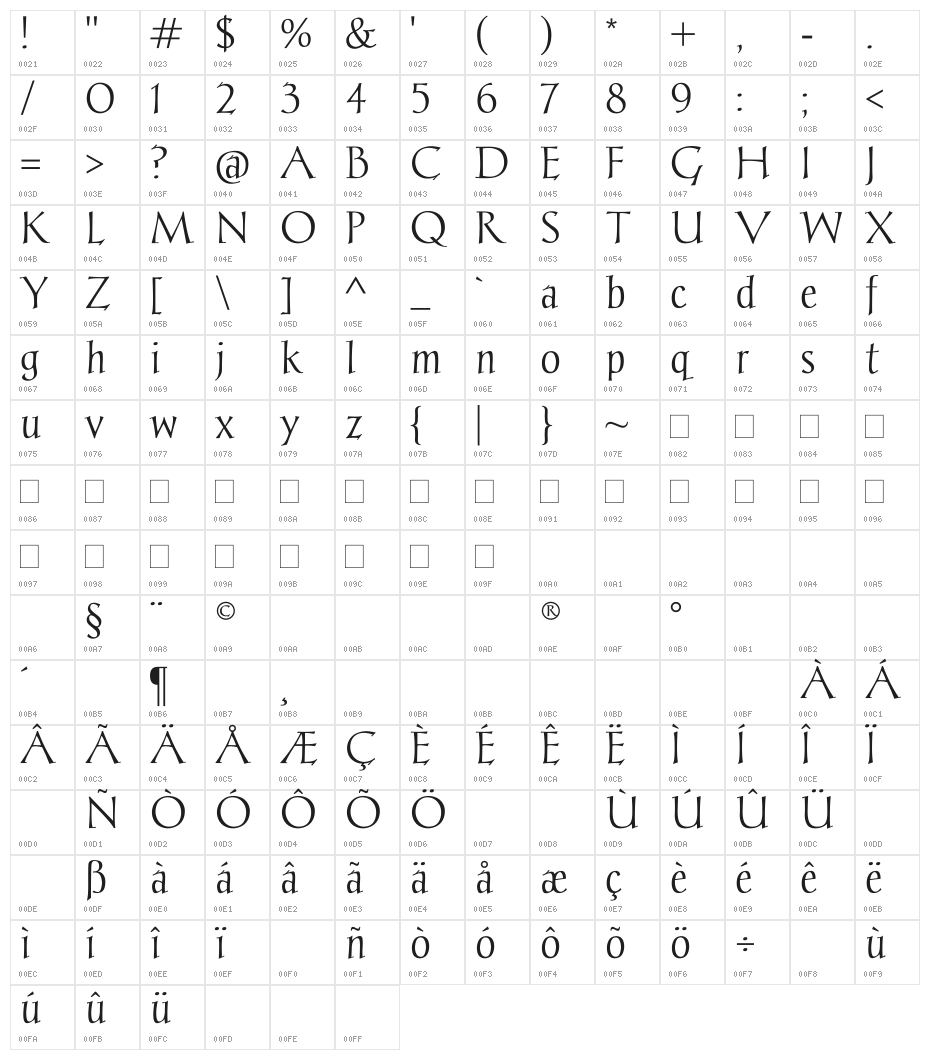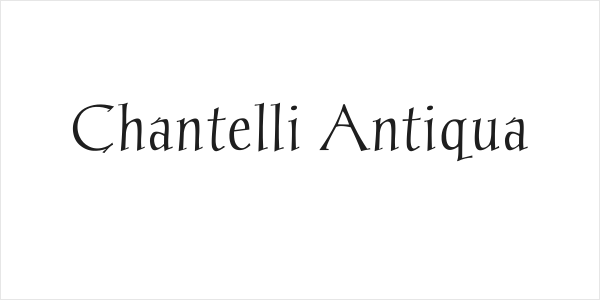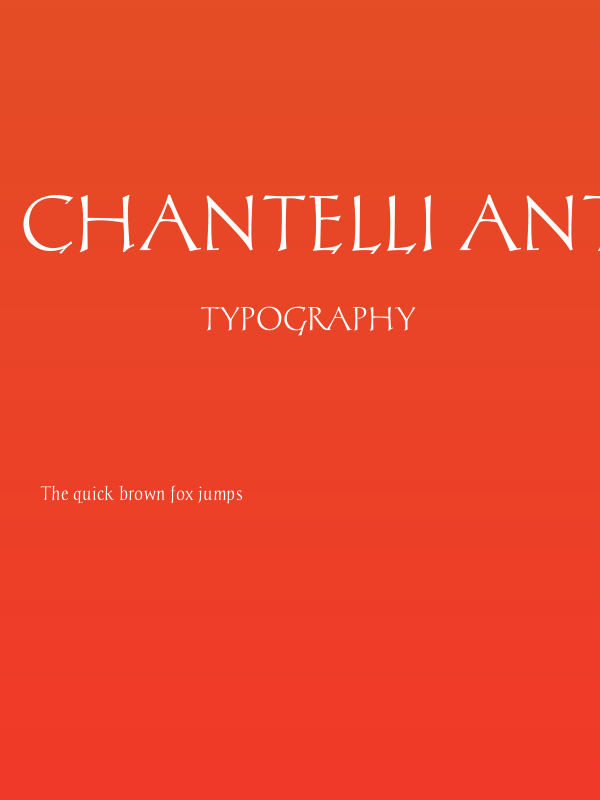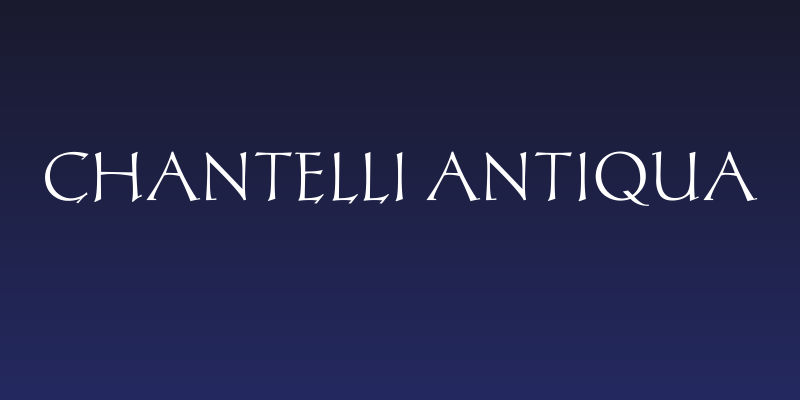
Chantelli Antiqua Font
Chantelli Antiqua Description
This font features a classic and elegant design with a calligraphic influence, characterized by its flowing curves and sharp serifs. The uppercase letters exhibit a distinct flair, with strokes that vary in thickness, adding a dynamic and sophisticated touch. The lowercase letters maintain a consistent style, complementing the uppercase with their graceful and slightly whimsical appearance. The numerals are bold and clear, ensuring readability while maintaining the overall aesthetic. Special characters are thoughtfully designed to match the font's artistic style, making it suitable for a variety of creative applications.
Overall StyleClassic
Use CaseLogos, Headlines, Invitations
Proposed ProjectsIdeal for wedding invitations, luxury branding, editorial design, and artistic posters.